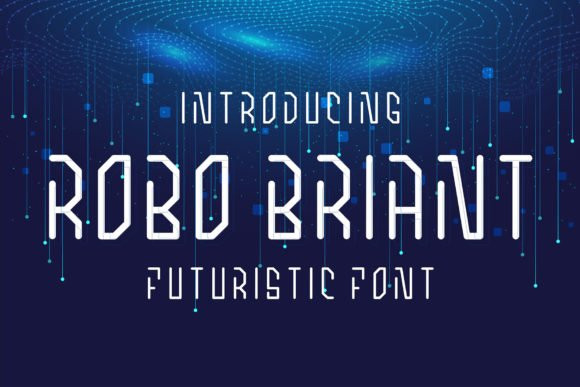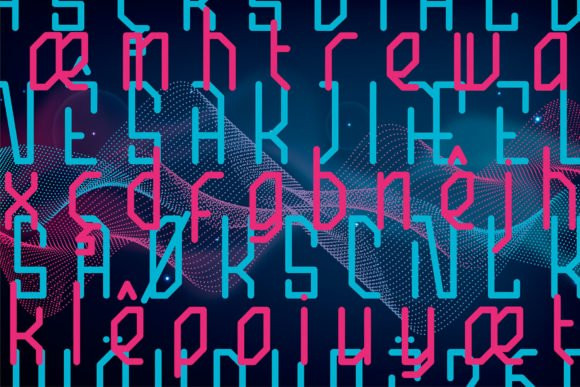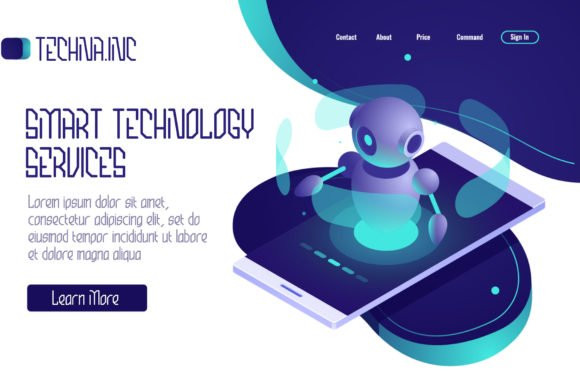
Robo Briant Font
Robo Briant is a display font that offers a more conservative take on futuristic letterforms. It not only works well as a display face but also to set small blocks of body copy. If you aren’t keen on extremely expressive typefaces, give Robo Briant a shot.